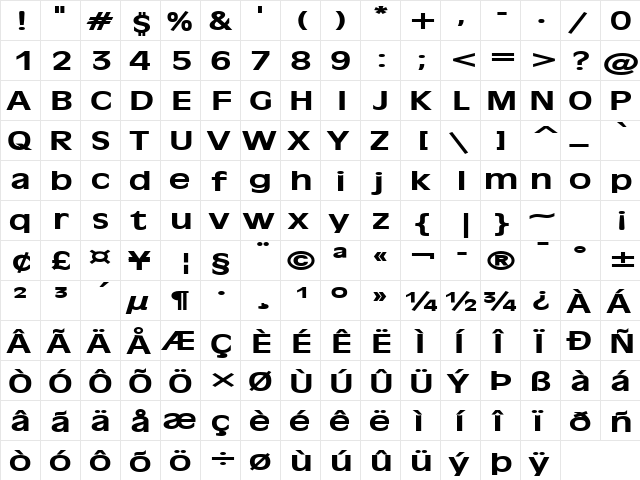
Antiqua 101 Extended Bold
Design Context for Antiqua 101 Extended Typeface
Antiqua 101 Extended takes a measured approach to typography — its balanced proportions and neutral character make it a reliable workhorse for both digital and print work. Its bold stroke weight gives it real presence on the page.